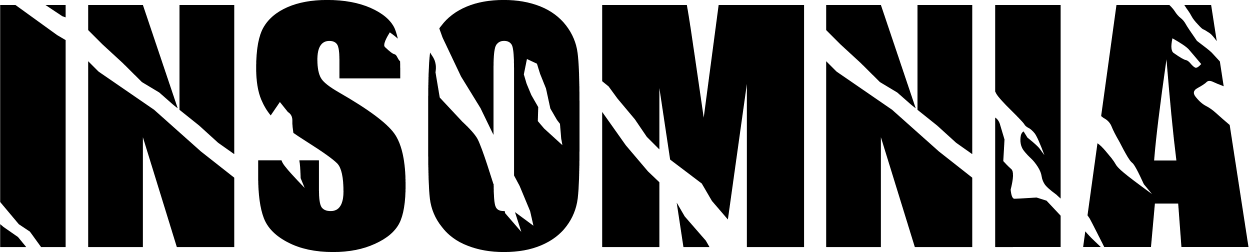
Insomnia Font
If you want to scare people off with only your words, this might be perfect for you. Insomnia has scratchy and bold characters that give a scary, punk, and mysterious feeling to your writing.
You can use this font for horror movie and book titles, Halloween posters and flyers, channel banners, and murder documentaries. It only contains a set of capitalized alphabetical letters.